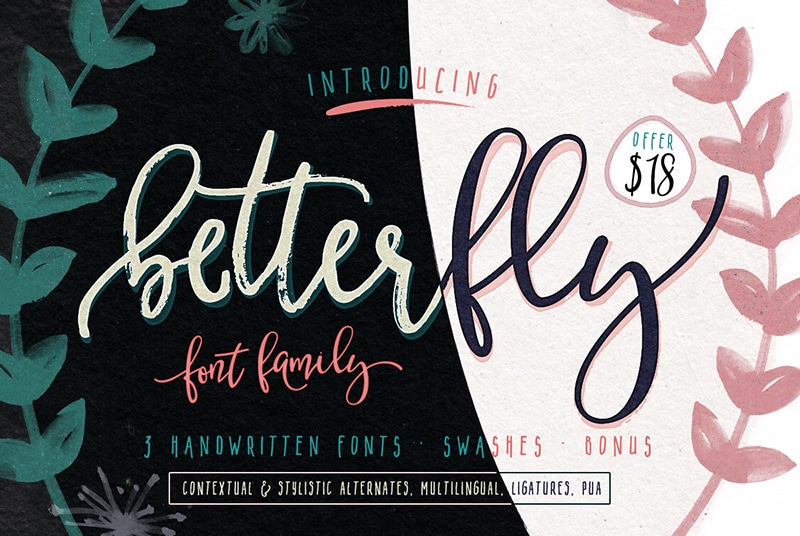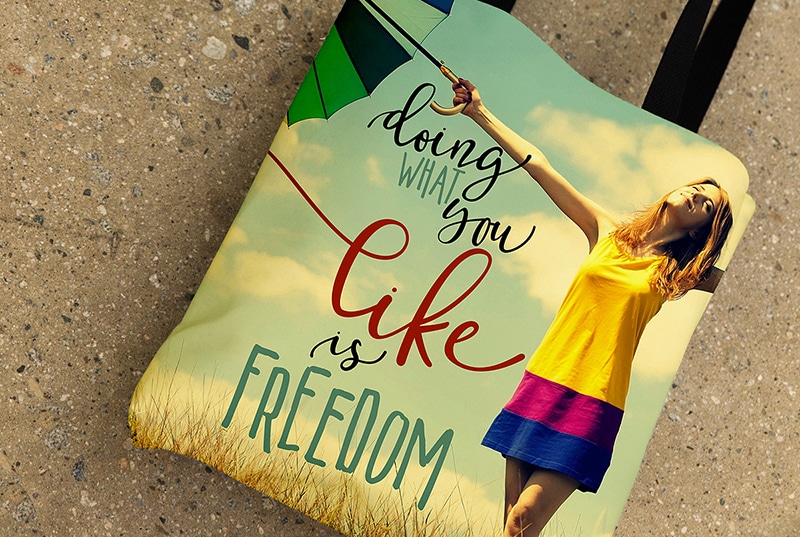
TUESDAY FONTS: BetterFly, Oregon Font and Gaze Pro
Tuesday is here and so is our category: Tuesday Fonts. This time we would like to present to you BetterFly, Oregon and Gaze Pro.
BetterFly
BetterFly is handwritten modern script family with numerous alternates. It is opentype! It is smart and it is working in Photoshop*! You are welcome to use it for various purposes: logo, wedding invitation, headings, signatures, t-shirt, letterhead, signage, labels, posters etc.
Oregon
Oregon is a clean and simple vintage sans serif font, with smooth edges to simulate vintage printing. Perfect for vintage logo designs, headers and small amounts of text. It contains an uppercase alphabet with numbers and symbols.
Gaze Pro
Gaze Pro is a multilingual typeface to suit many applications, Editorial, Weddings, Restaurants etc. Most suitable as a display font, the main focus was to include as many indulgent aspects as possible, with 190 swashes for example, without compromising the legibility.